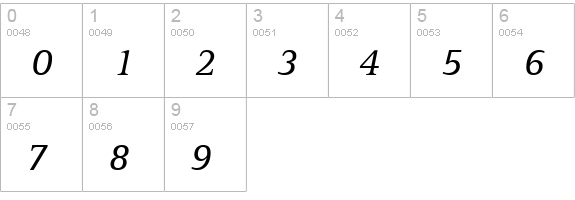
Libre Serif SSi Italic Font Details
Libre Serif SSi Italic is a distinctive, italic variant in the Libre typeface family \xE2\x80\x94 well suited to design and typography projects.
Libre Serif SSi Italic font exudes elegance and sophistication with its sleek and modern design. The italic style adds a touch of flair and sophistication to any text, making it perfect for use in stylish designs and creative projects. This font is a versatile choice for both professional and personal use, thanks to its clear legibility and timeless appeal. Best of all, Libre Serif SSi Italic font is freely available to download at FontsMarket.com. Whether you're working on a branding project, designing a website, or creating eye-catching print materials, this font is sure to elevate your work to the next level. Add a touch of refinement and creativity to your designs with Libre Serif SSi Italic font today!